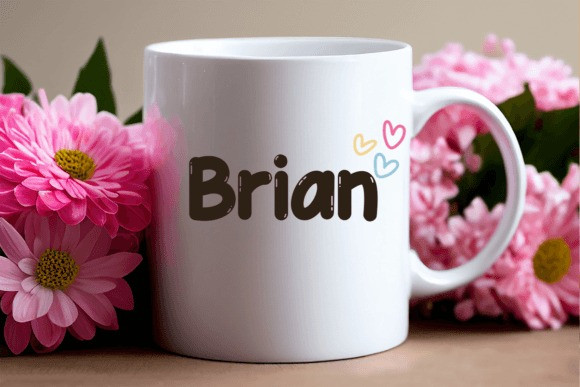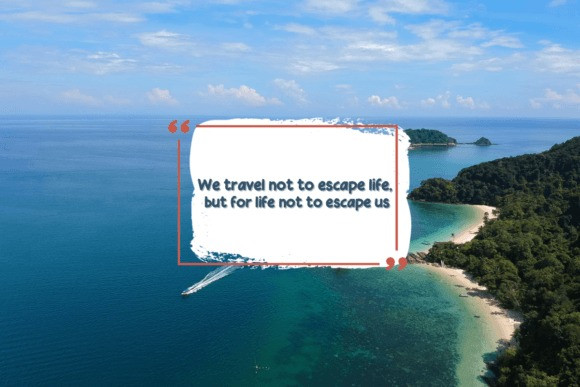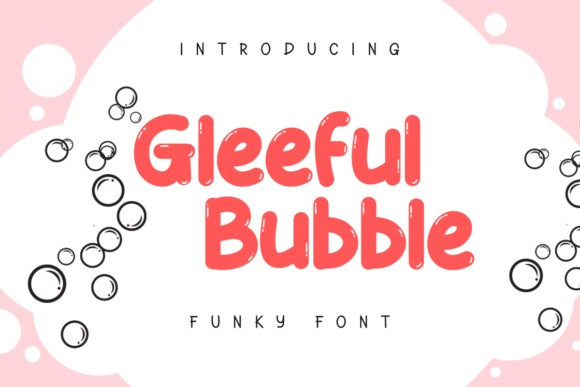
Gleeeful Bubble Font
Gleeeful Bubble Font, a delightful font that bubbles with joy, featuring a hint of sparkling bubbles in each character. This playful typeface adds a touch of whimsy to your designs, infusing them with a sense of light-hearted cheer.
Let Gleeeful Bubble be the choice that brings a burst of happiness and a sprinkle of effervescent charm to your creative projects.